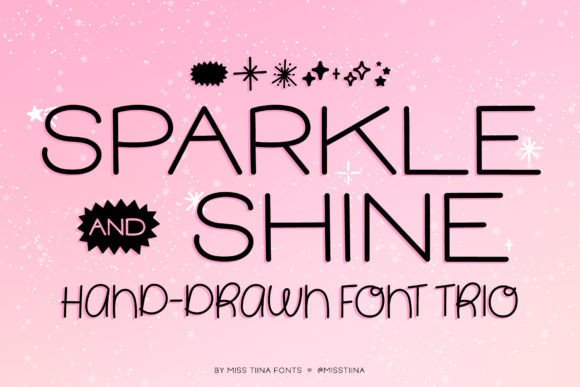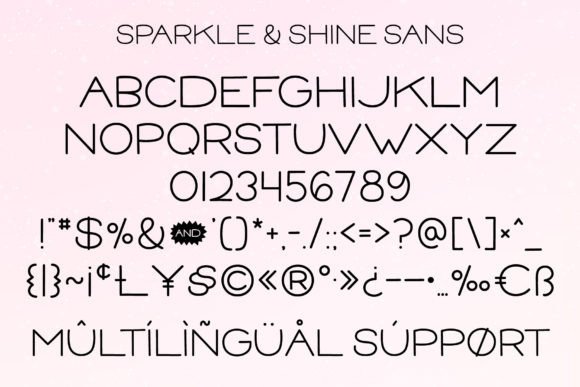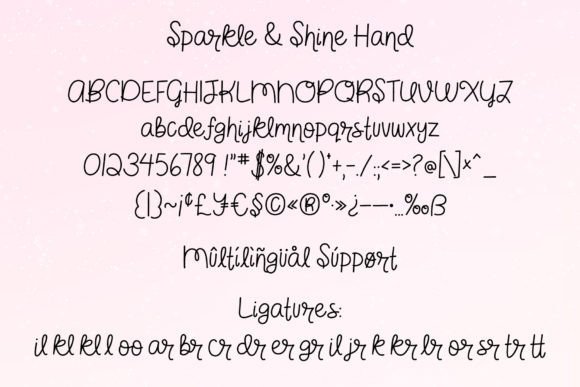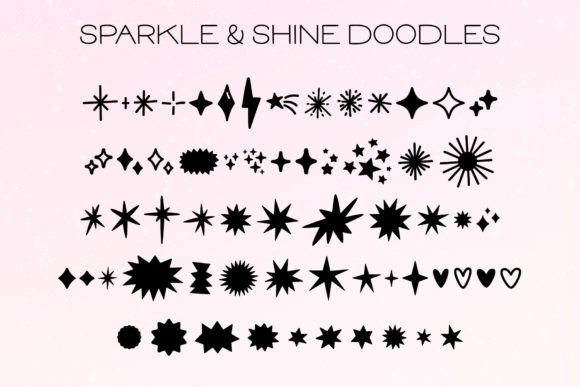
Sparkle & Shine Font Trio is sure to bring happiness and joy to any project with it’s playful charming characters! It’s perfect for posters, t-shirts, home decor, planners, kids projects and so much more!
Sparkle & Shine Font